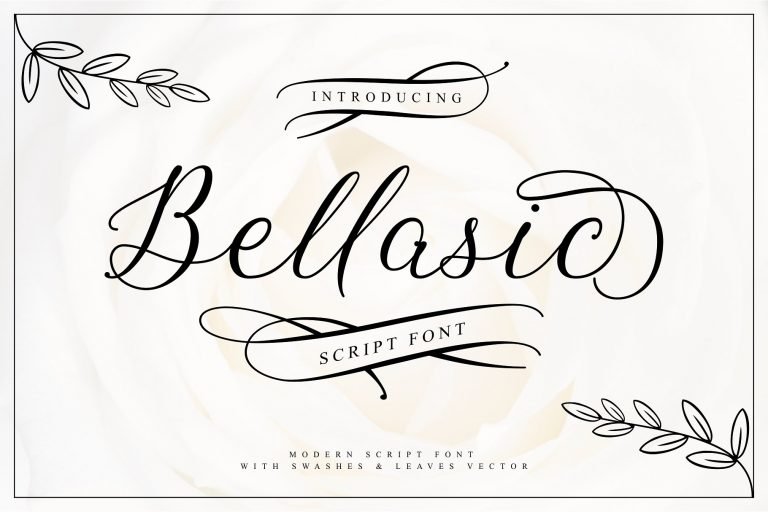
Bellasic Script Font
This is a modern script font with swashes & leaves vector, it will bring many choices for your work, created by YdhraStudio. Introducing Bellasic Font. Bellasic for those of you who are needing a touch of elegance and modernity for your designs, this font was created for you! Bellasic is great for Invitations, Greeting Cards, Posters, Name Card, Quotes, Blog Header, Branding, Logo, Fashion, Apparel, Letter, Magazine, Advertising Design, Stationery and more!